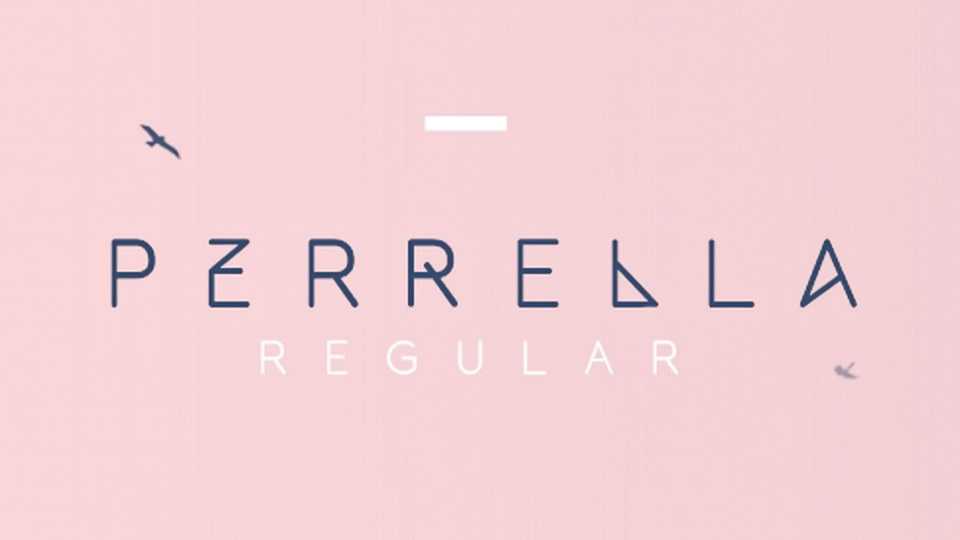
Download Perrella font, a monostroke sans serif typeface witha a standard set of glyphs and creative stylistic alternates. Perrella font is perfect for logos, branding, posters, headlines, covers and other artworks.